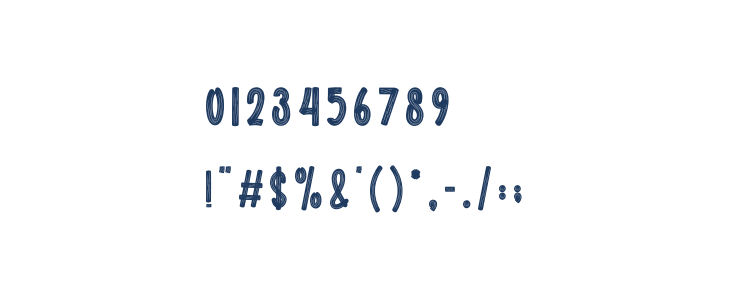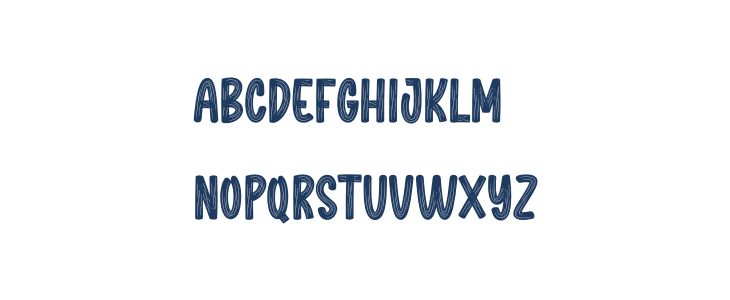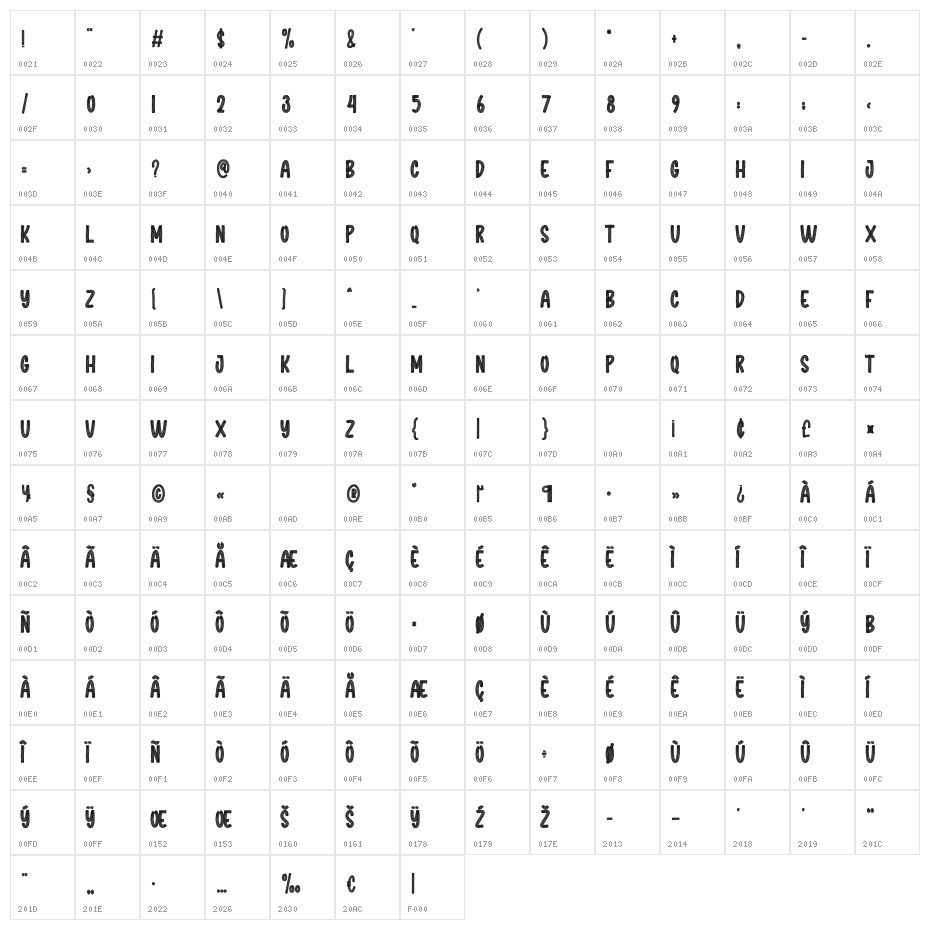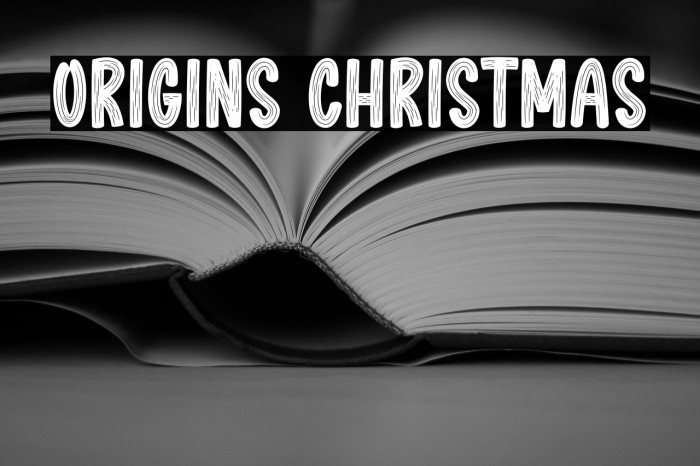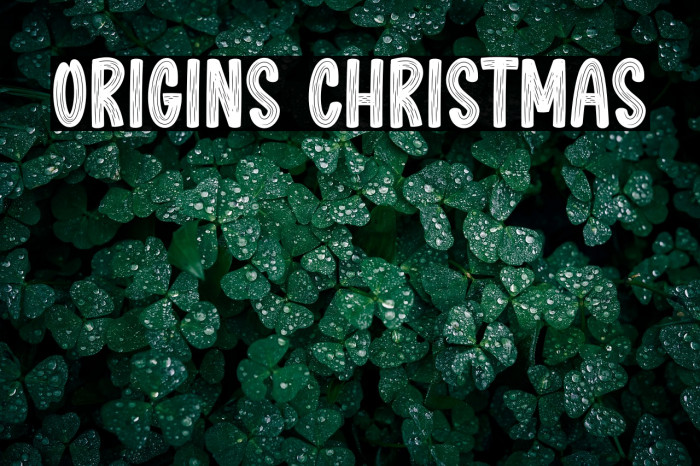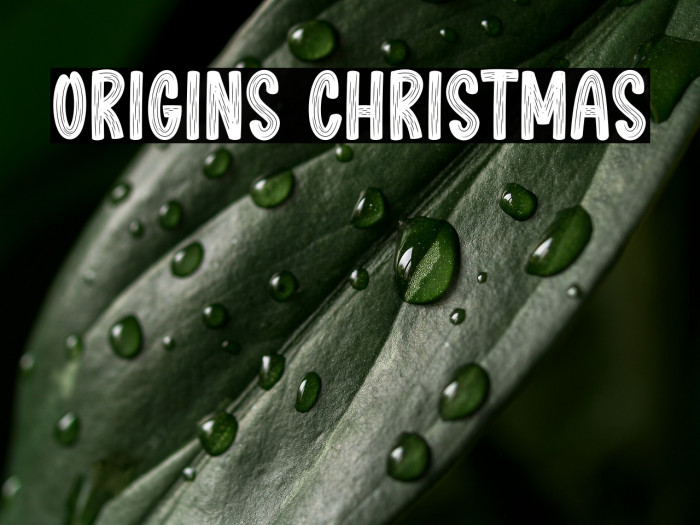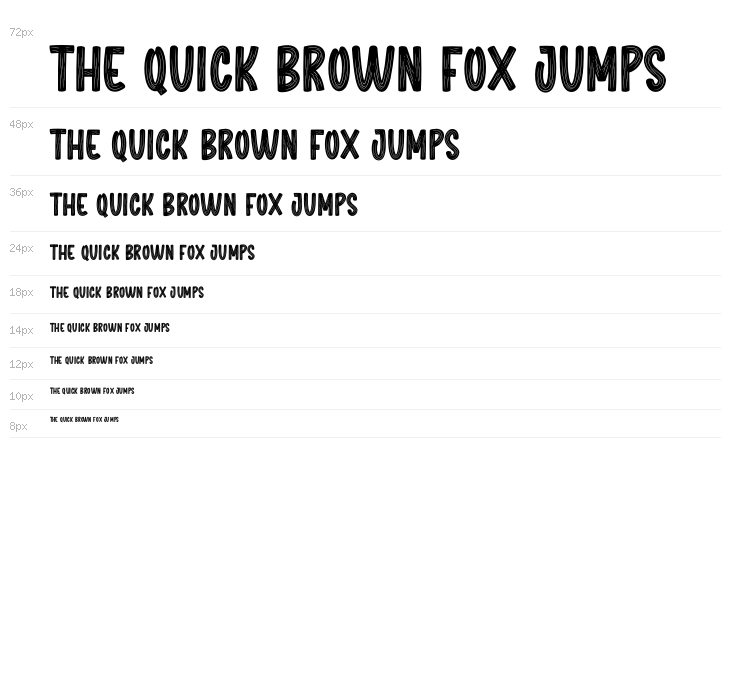
Origins Christmas Font
Origins Christmas Description
A playful, hand-drawn display font with bold, rounded letterforms and a textured, sketch-like fill. The characters are evenly spaced, with consistent stroke width and a whimsical, informal appearance.
| Overall Style | Decorative, Playful, Festive |
| Use Case | Headlines, Posters, Greeting cards, Logos |
| Proposed Projects | Holiday cards, festive posters, children's books, party invitations, seasonal branding. |